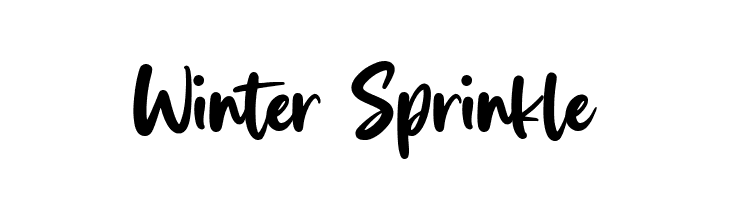
A playful, handwritten font with rounded edges and a casual style.
A bold, jagged font with a distressed, spooky aesthetic.
A delicate and flowing script font with elegant, cursive letterforms.
An elegant, flowing script font with graceful cursive letterforms.
A playful, handwritten font with a whimsical and friendly style.
A playful, hand-drawn font with snowflake-like embellishments and a bold, rounded style.
A whimsical handwritten font with a casual and fluid style.
An ornate and decorative font with intricate swirls and flourishes.
A dynamic, rough script font with an italic slant and hand-drawn appearance.
A dynamic and fluid script font with elegant, flowing strokes.